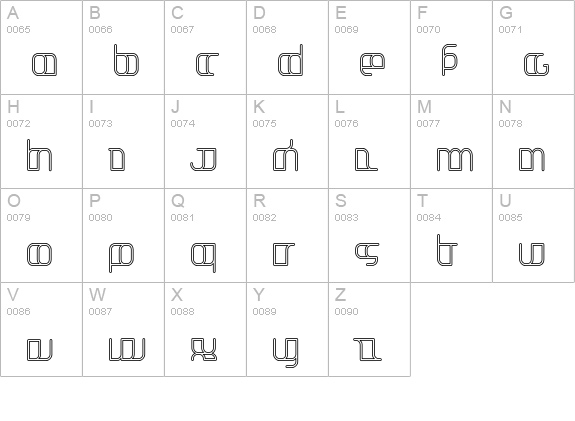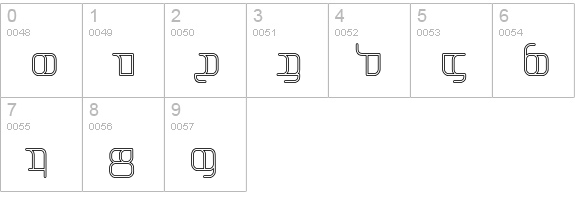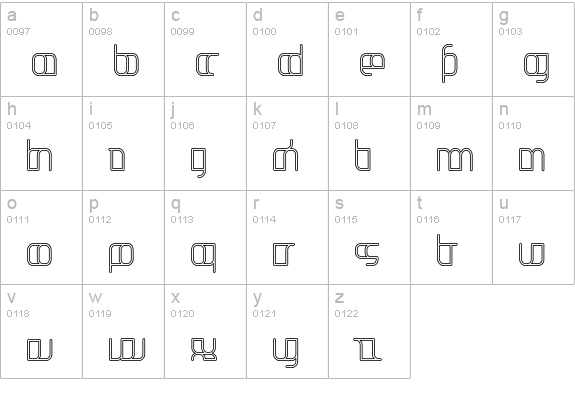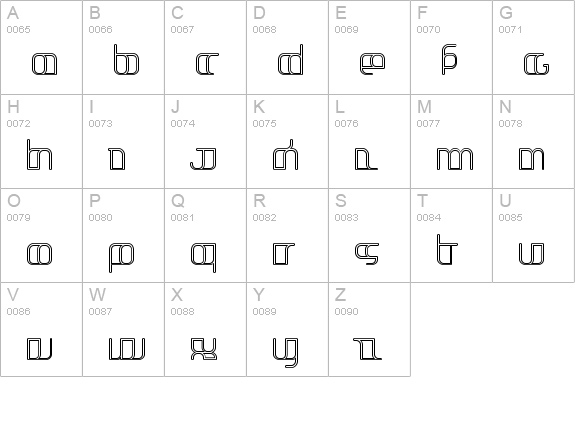
Introducing Jakone-Twin, a remarkable font that effortlessly combines elegance and versatility. Crafted with utmost attention to detail, Jakone-Twin is the perfect choice for those seeking a font that exudes sophistication and modernity. With its sleek and balanced letterforms, Jakone-Twin captures attention and leaves a lasting impression. Its clean lines, subtle curves, and impeccable spacing create a harmonious visual experience, making it suitable for a wide range of design projects. Whether you're designing a logo, creating a captivating headline, or crafting a professional presentation, Jakone-Twin offers a plethora of possibilities. Its versatility shines through in both print and digital mediums, ensuring consistent and impactful communication across various platforms. One of the most appealing aspects of Jakone-Twin is that it is available for free. Yes, you read that right – this exceptional font can be downloaded without any cost. Thanks to the generosity of FontsMarket.com, Jakone-Twin can be freely accessed by designers, creatives, and enthusiasts alike. So why wait? Elevate your designs to new heights with Jakone-Twin. Download this remarkable font from FontsMarket.com and let your creativity soar. Whether you're an experienced designer or just starting out, Jakone-Twin offers the perfect blend of elegance and accessibility, providing you with the tools you need to make a lasting impression.